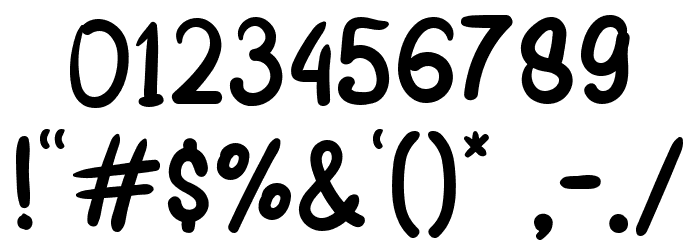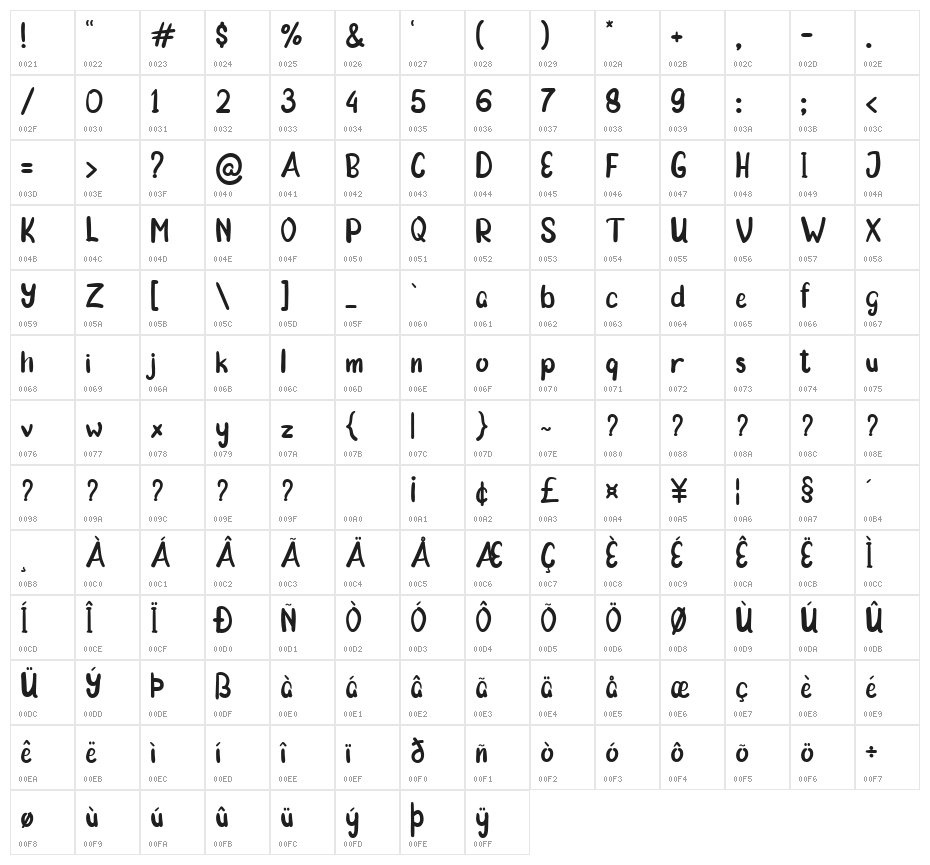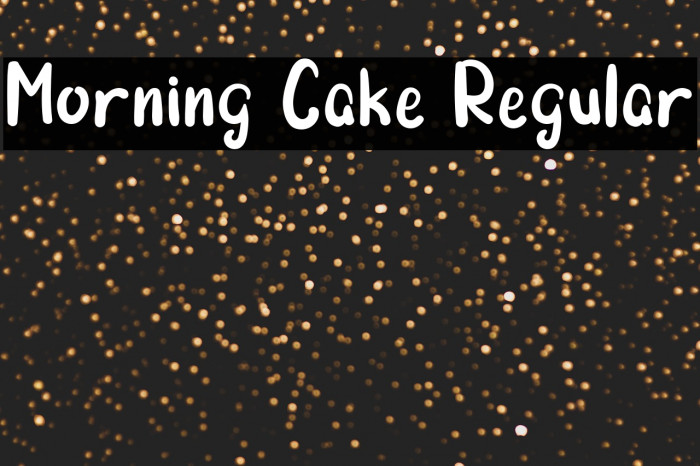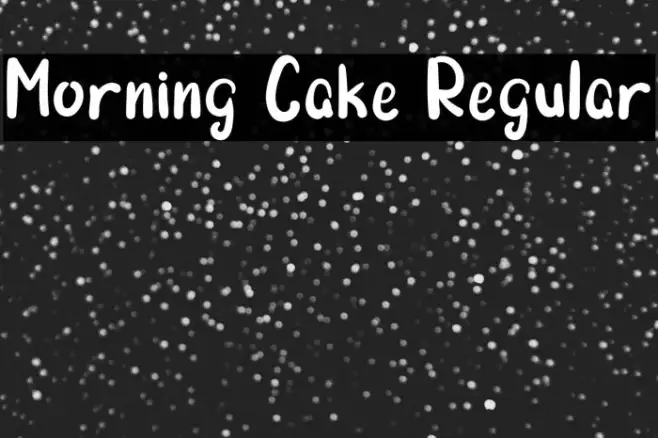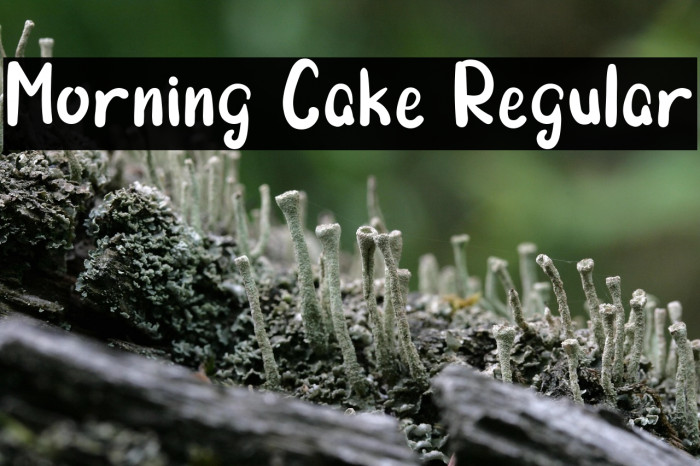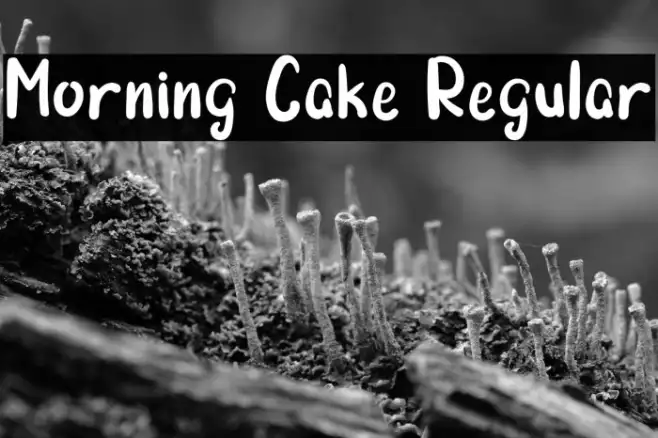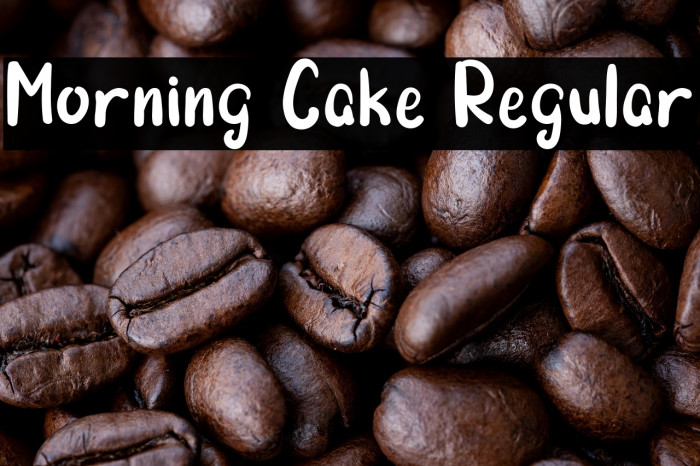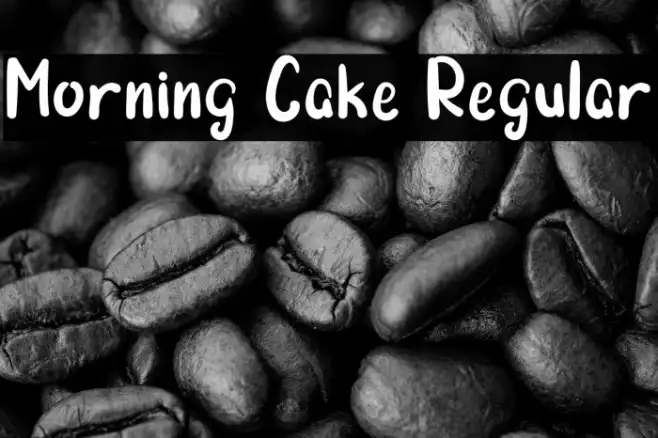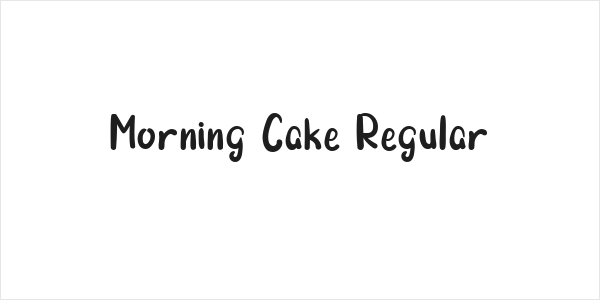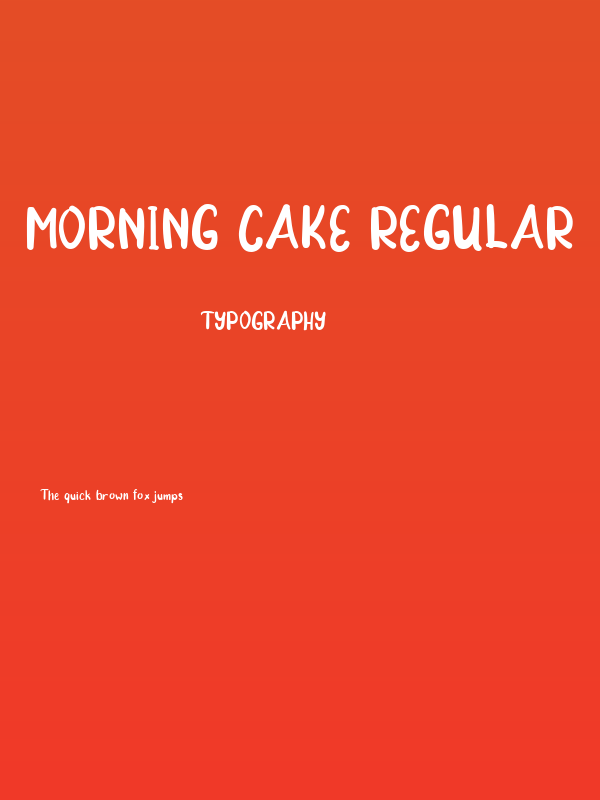
Morning Cake Regular Font
Morning Cake Regular Description
This playful and whimsical font features rounded, bold characters with a hand-drawn appearance. The letters have a consistent stroke width, giving them a uniform look while maintaining a casual, friendly vibe. The uppercase and lowercase letters are well-balanced, with slightly exaggerated curves that add to the font's charm. The numerals and special characters are equally expressive, making this font versatile for various creative projects. Its informal style is perfect for designs that require a touch of fun and personality.
| Proposed Projects | Ideal for children's books, greeting cards, playful branding, and social media graphics. |